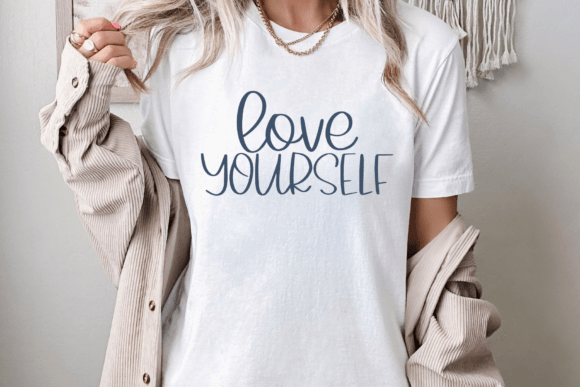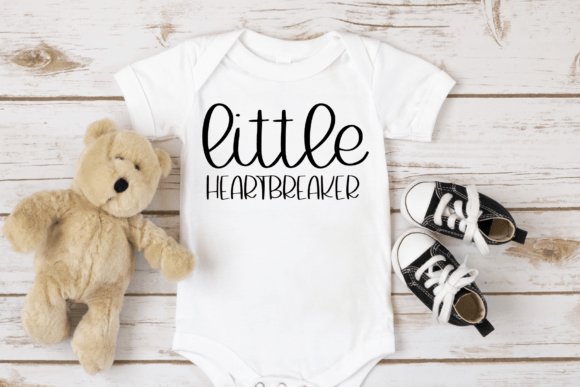
Country Berries Font
Country Berries is a quirky handwritten font. This cute font is perfect for fun logos, greeting cards, t-shirt designs, stickers, social media, and any craft or project for that hand-made look.